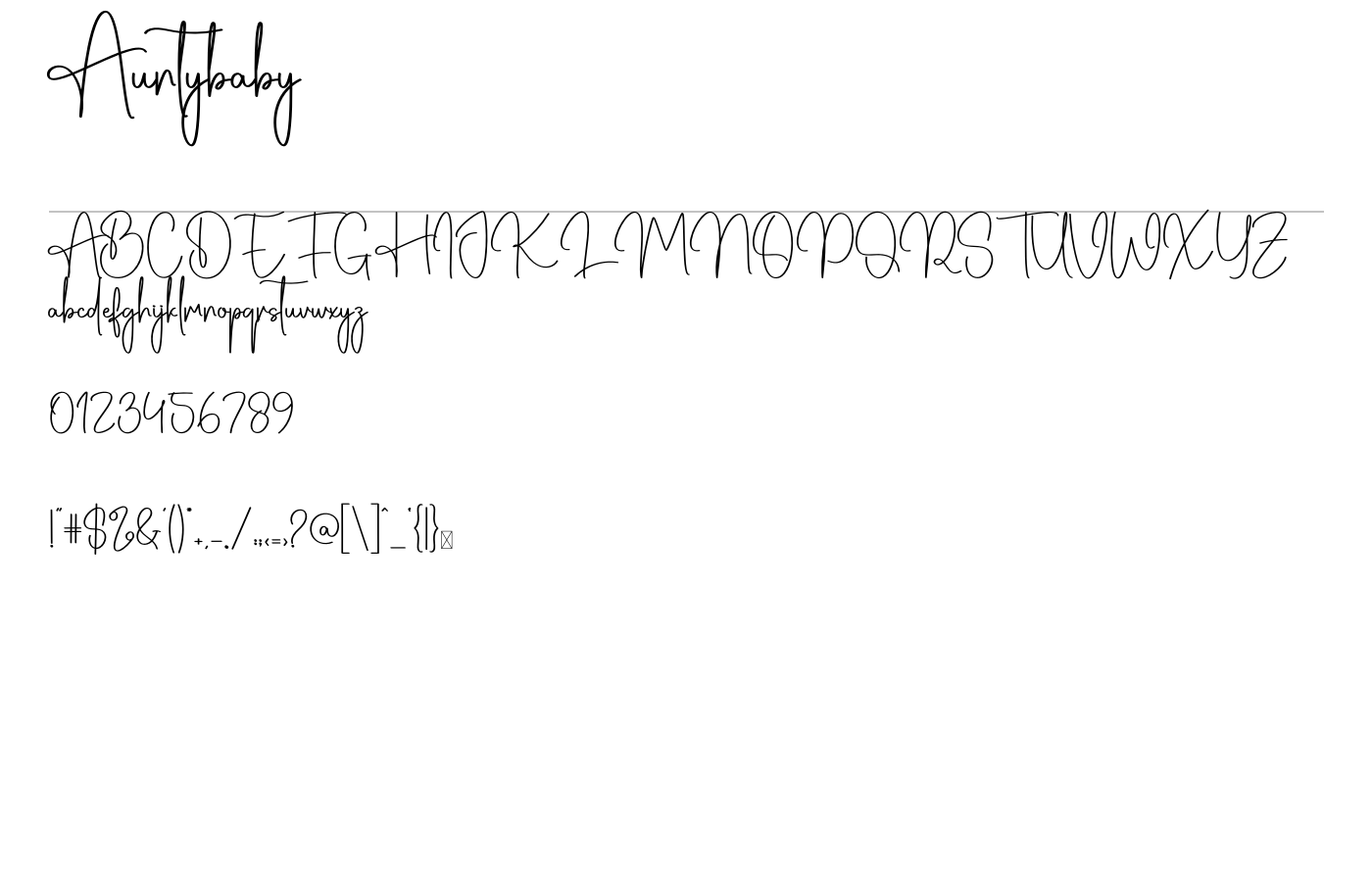
Auntybaby is a delicate, handwritten script font characterized by its tall, slender letterforms and graceful, flowing strokes. Its light weight and elegant curves give it a personal, whimsical feel, making it ideal for invitations, branding, and creative projects where a charming, intimate touch is desired. This font works beautifully in headlines and decorative text, lending a stylish, approachable personality to any design.
Auntybaby Font